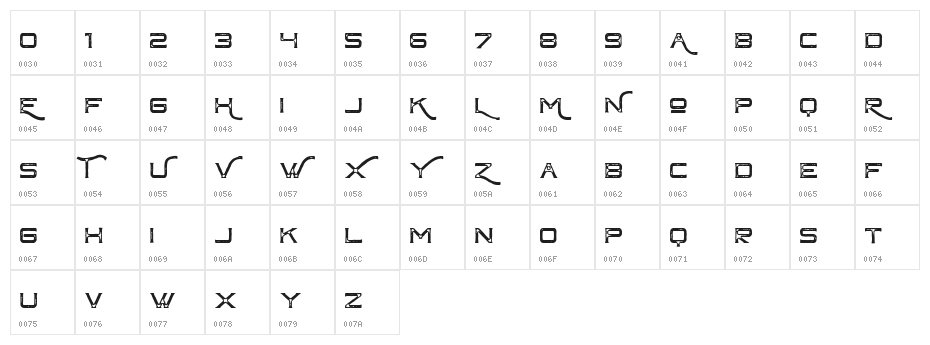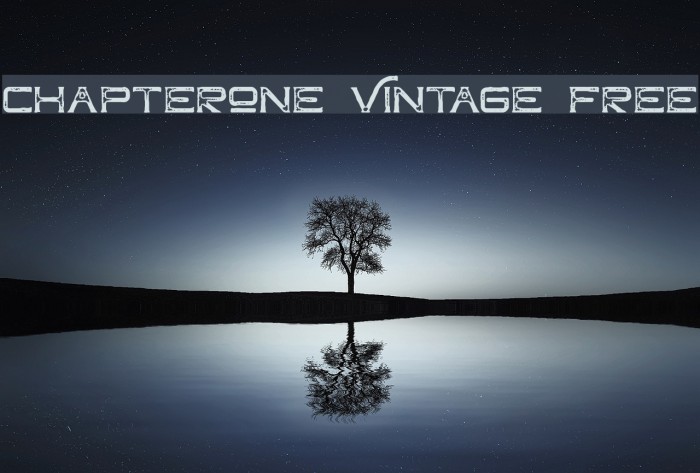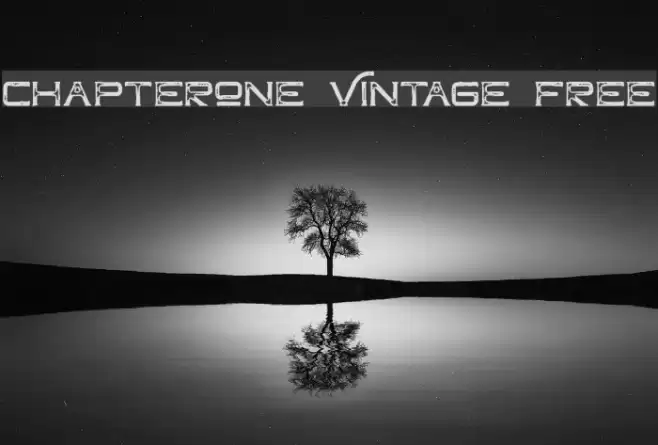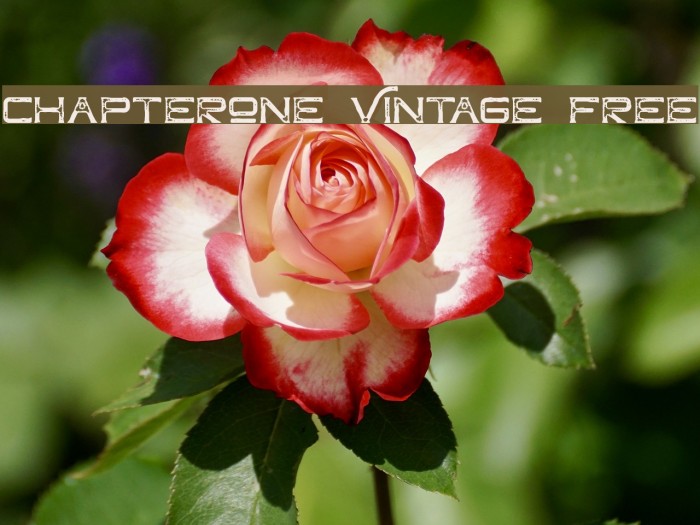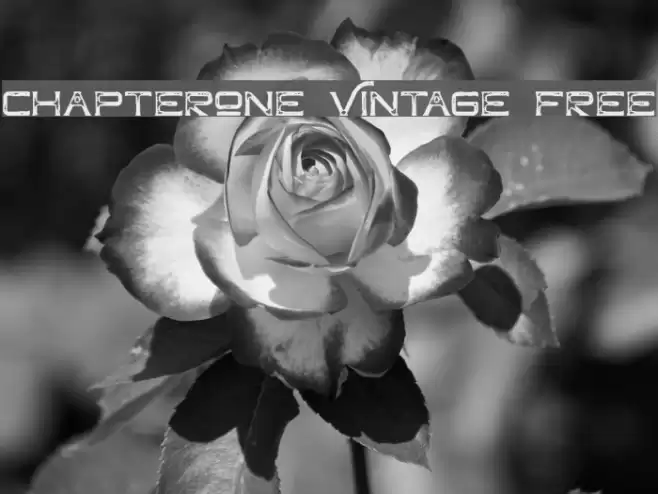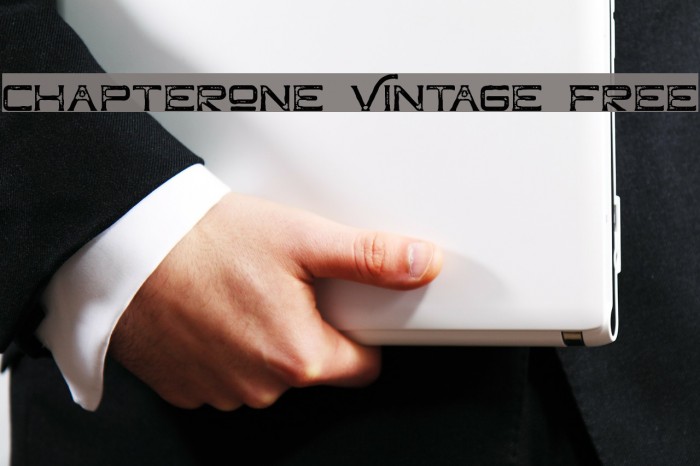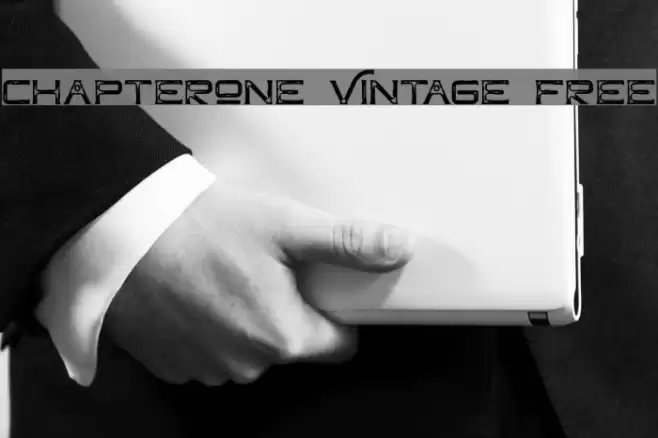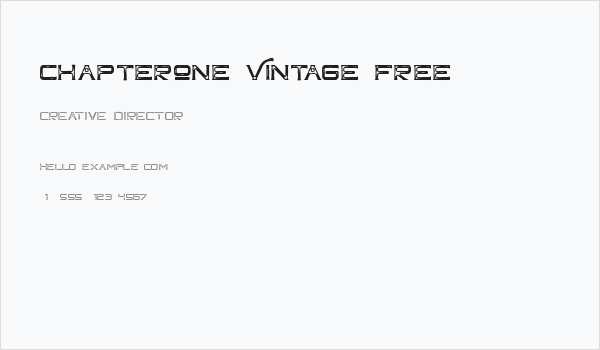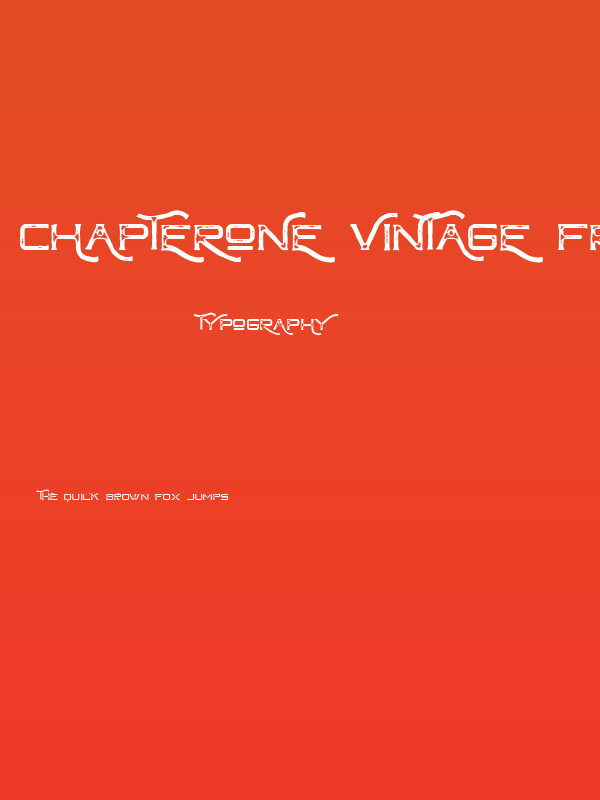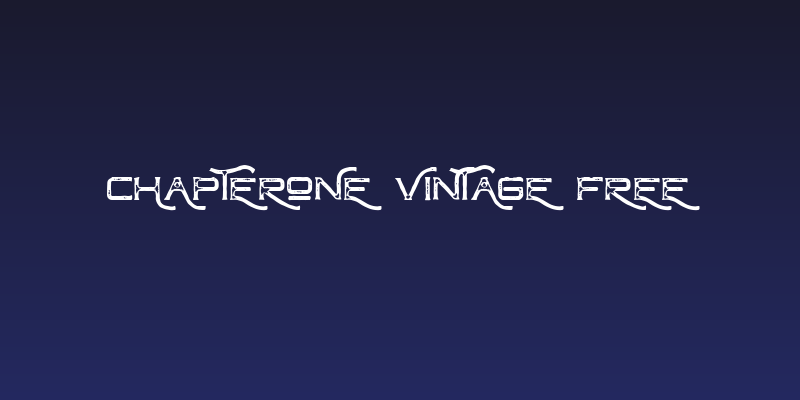
ChapterOne Vintage Free Font
ChapterOne Vintage Free Description
This font features a distinct vintage style with a distressed, textured appearance that gives it an aged, weathered look. The uppercase letters have unique, elongated serifs with some characters incorporating decorative swashes, adding to its antique charm. The lowercase letters maintain a consistent style, complementing the uppercase with a slightly more restrained design. The numerals follow the same distressed aesthetic, ensuring a cohesive look across all characters. This font's intricate detailing and bold presence make it ideal for projects that require a touch of nostalgia or a retro vibe.
| Proposed Projects | Ideal for vintage-themed posters, retro branding, and decorative signage. |